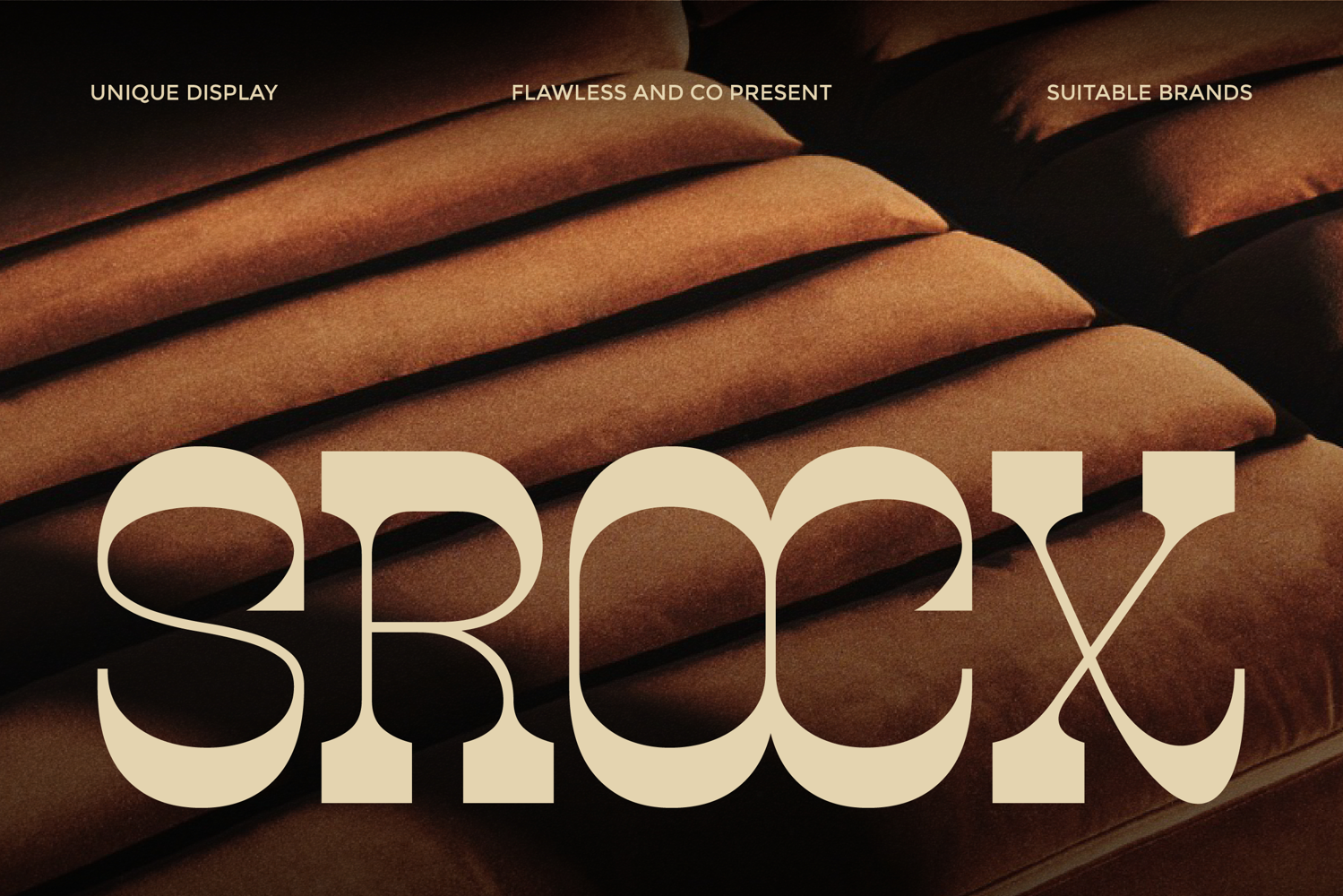
Srocx
Srocx - Unique Display Font
Srocx is a unique vintage display font inspired by the rugged spirit, elegant craftsmanship, and timeless character of the Old West. Featuring distinctive western-style letterforms, classic slab-inspired structures, and vintage decorative details, Srocx delivers an authentic frontier aesthetic that instantly captures attention. Its bold personality and handcrafted appearance make it perfect for designs that seek a classic western atmosphere with a unique modern twist.
Uppercase & Lowercase
Alternates & Ligatures
Numerals & Punctuation
Multilingual Support
Who Should Use Srocx?
Srocx is ideal for designers, vintage enthusiasts, creative brands, and businesses looking for a western-inspired display font with elegant character and authentic vintage appeal. It’s especially suited for projects that require rustic typography, historical charm, and standout visual impact.
Suitable For:
Creative branding and logo design
Packaging and product labels
Poster and advertising materials
Restaurant and café branding
Editorial and magazine headlines
Social media graphics
Merchandise and apparel design
Western and vintage branding
Vintage posters and signage